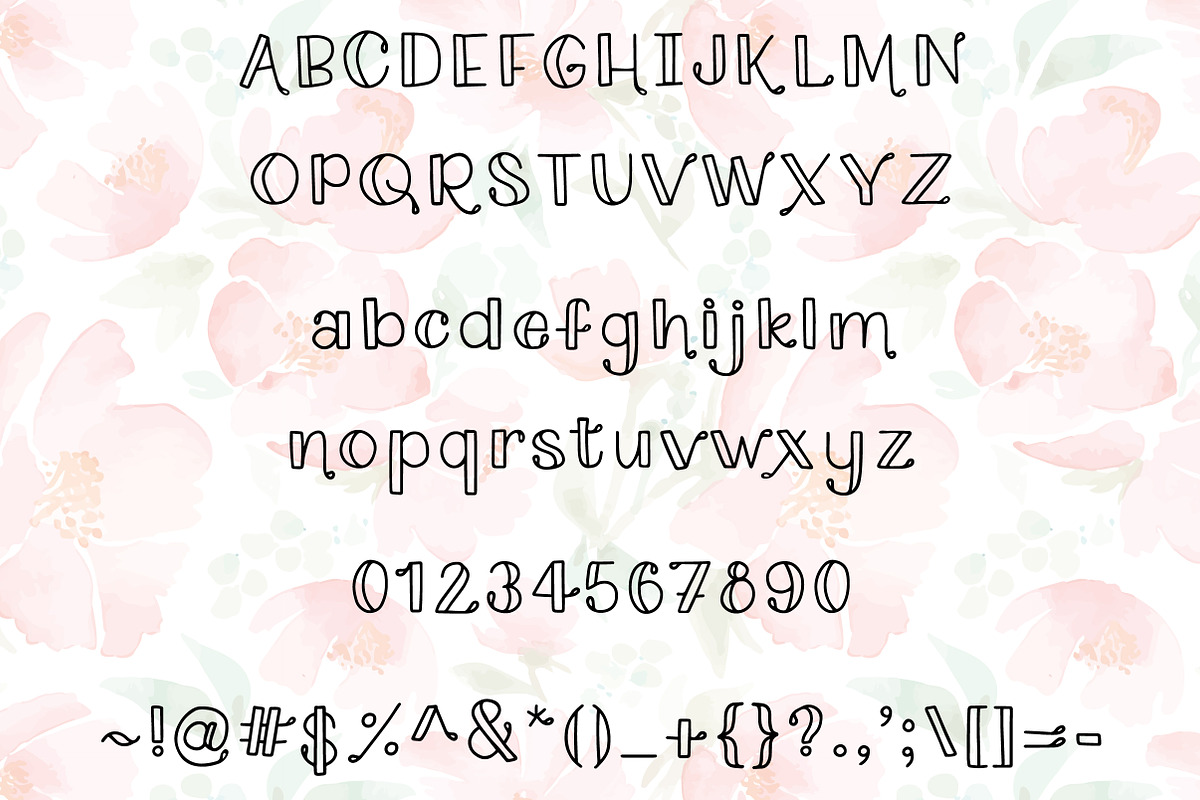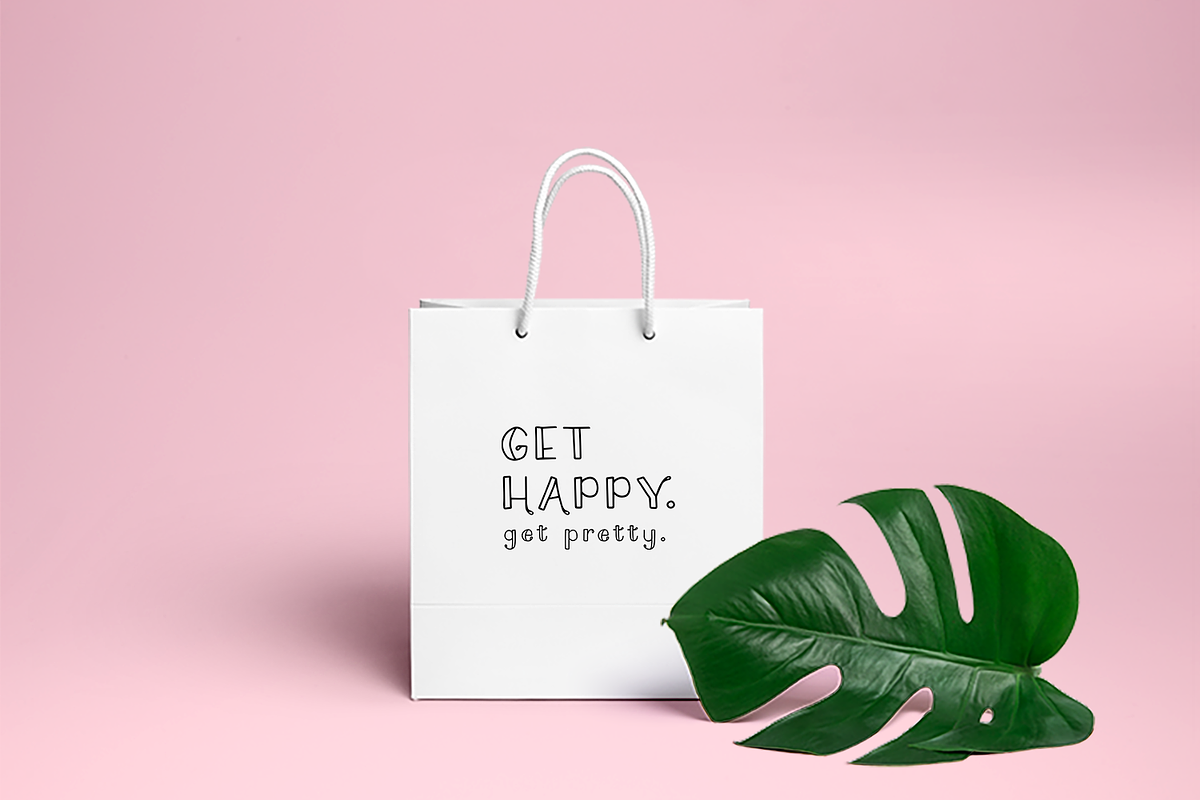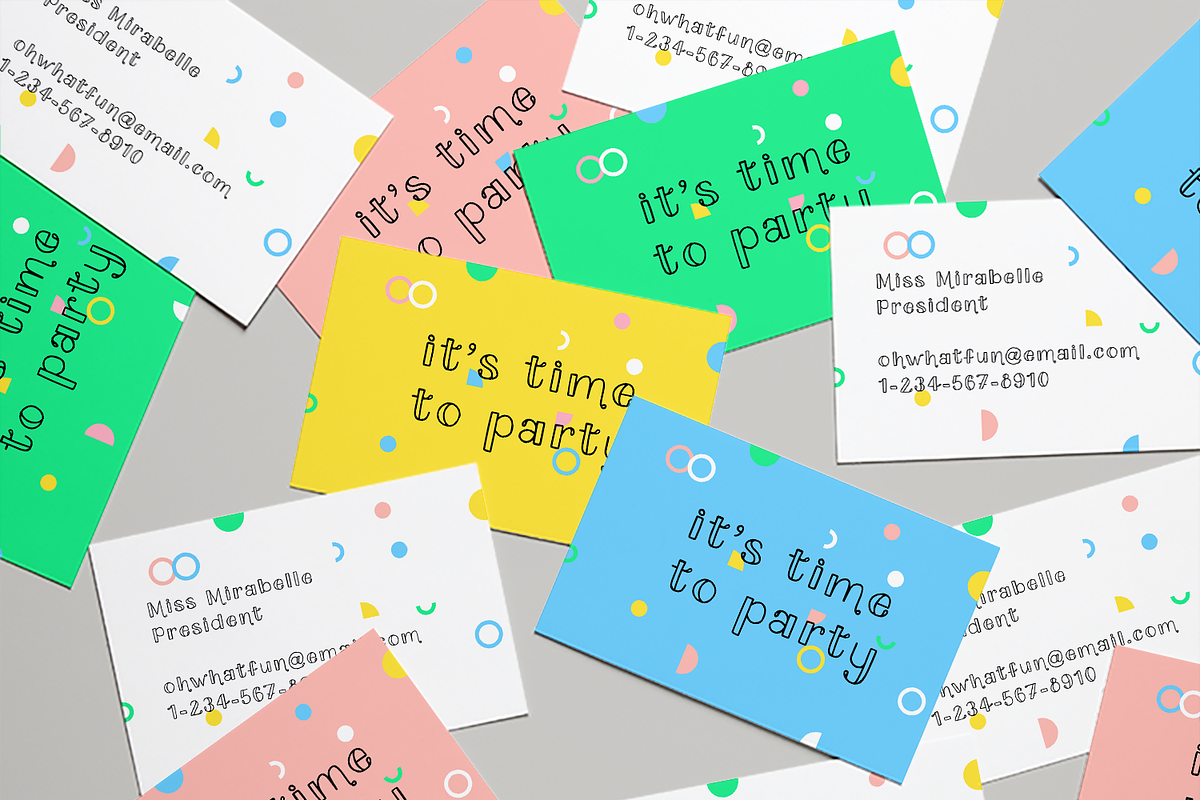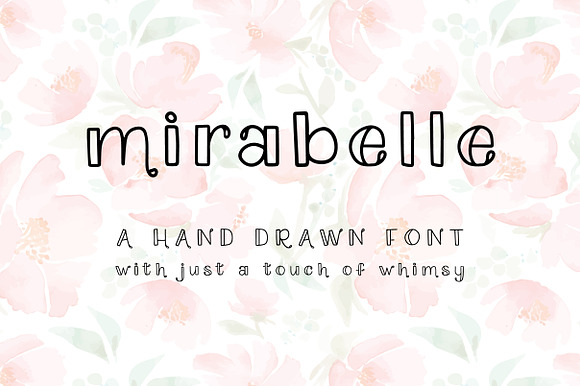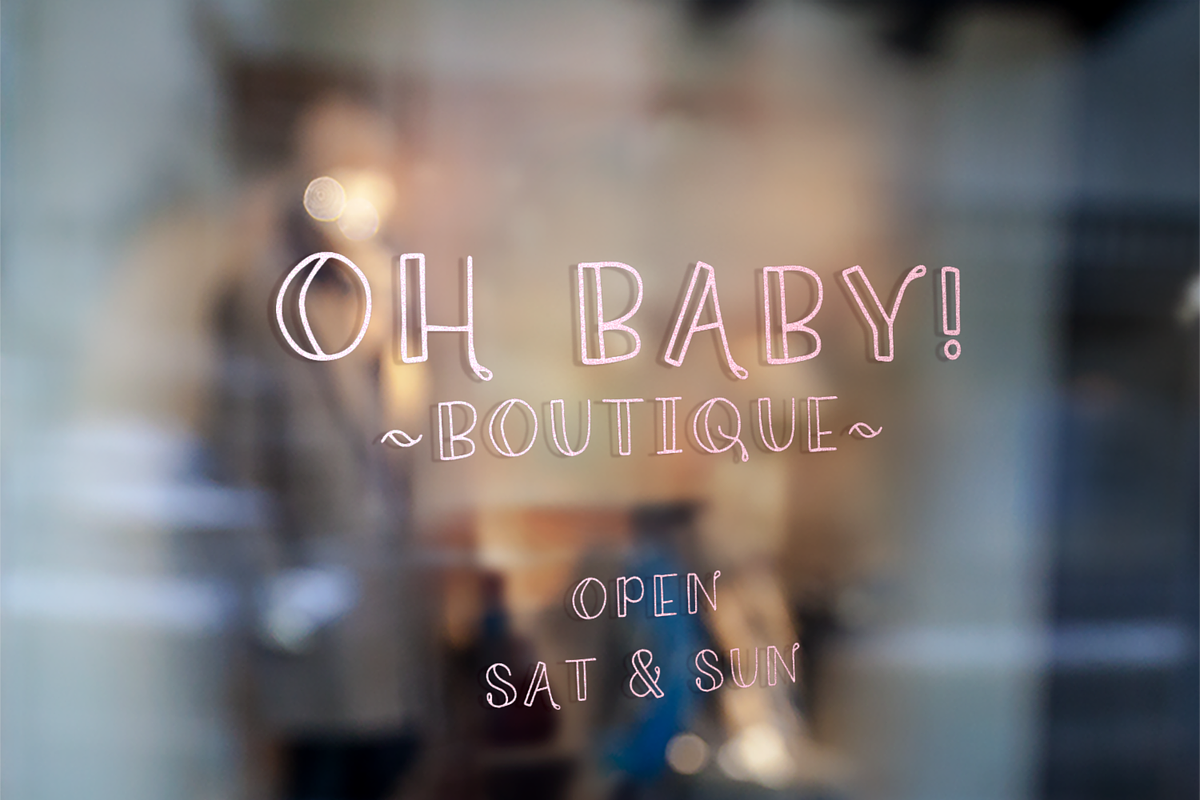
Mirabelle: A Hand Drawn Font
Mirabelle is an adorable hand drawn font with whimsical tear drop details.
The font file comes with the usual characters (A-Z, a-z, 0-9, and tons of punctuation), as well as accented characters to support most Latin-based languages.